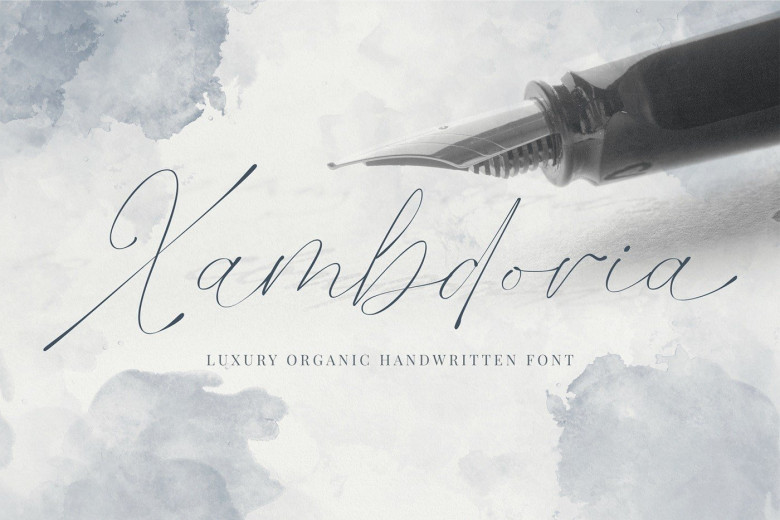
Xambdoria Luxury Organic Handwritten Font
Xambdoria is a luxury organic handwritten font carefully created with a touch of elegance. This is a beautiful combination of timeless elegance and authentic calligraphy. It features an incredibly classic style, while still keeping a friendly feel. Xambdoria is the perfect font for making original and outstanding designs.
With modern script style this font will perfect for many different project ex: logo, photography, watermark, quotes, blog header, poster, wedding, branding, logo, fashion, apparel, letter, invitation, stationery, etc.